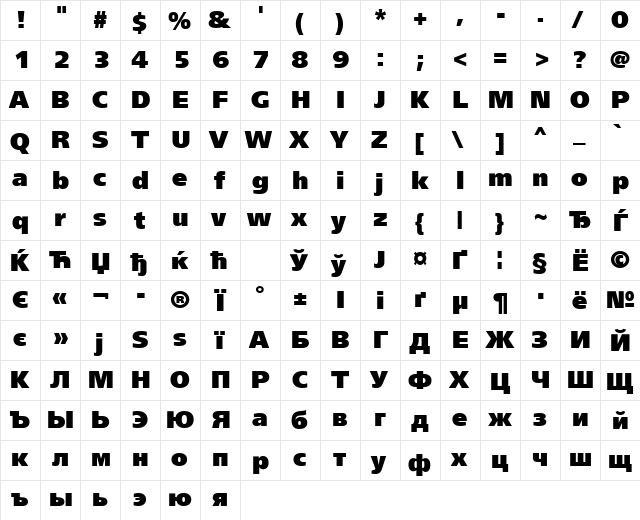
FreeSetExtraCTT Regular
Design Context for FreeSetExtraCTT Typeface
FreeSetExtraCTT offers clean, dependable letterforms without strong stylistic allegiance, making it a practical choice for designers who need flexibility.